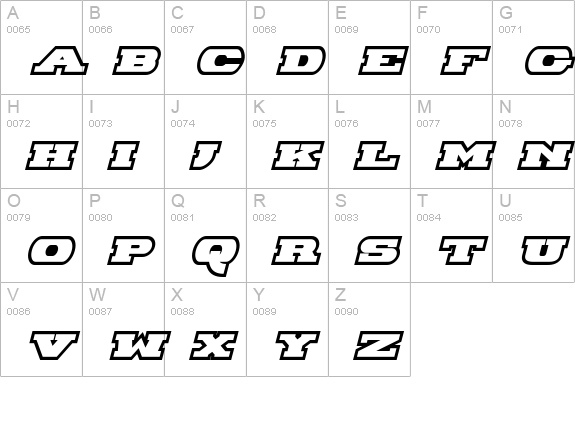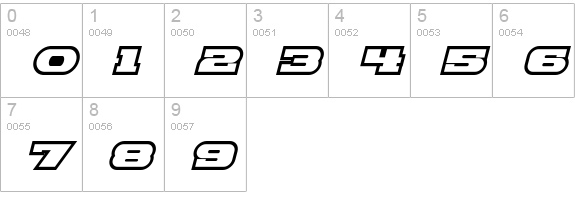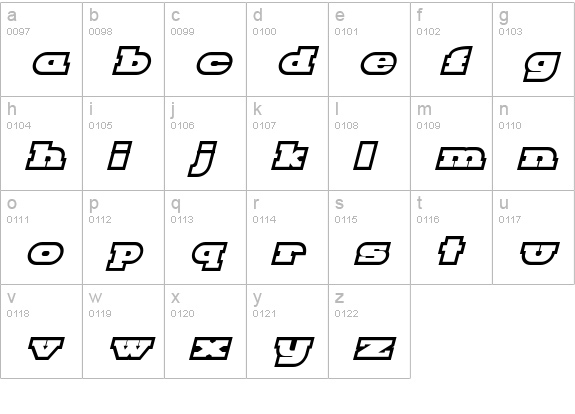
Hackney Block Outline Italic Font Details
Hackney Block Outline Italic is a distinctive, italic variant in the Hackney typeface family \xE2\x80\x94 well suited to design and typography projects.
Hackney Block Outline Italic is a captivating and modern font that combines the boldness of block lettering with a touch of elegance. It is the perfect choice for those looking to make a statement with their designs, whether it be for logos, headlines, or creative projects. With its unique and eye-catching outline design, Hackney Block Outline Italic adds a distinctive and edgy element to any composition. The italicized style adds a sense of movement and dynamism, making it ideal for projects that require a stylish and contemporary look. One of the standout features of this font is its versatility. It can be used in a variety of contexts, from fashion and beauty to technology and sports. Its bold and impactful appearance ensures that your message will be noticed and remembered. What makes Hackney Block Outline Italic even more appealing is that it is available for free download at FontsMarket.com. This means that you can easily access and start using this font in your projects without any cost. This accessibility allows designers and creatives of all levels to experiment with and utilize this stunning font without breaking the bank. So, if you're in search of a font that combines boldness, elegance, and a touch of edginess, look no further than Hackney Block Outline Italic. Download it for free at FontsMarket.com and let your designs stand out with this captivating and modern typeface.